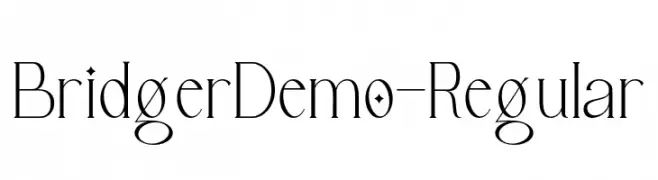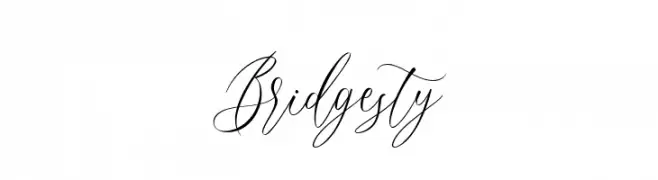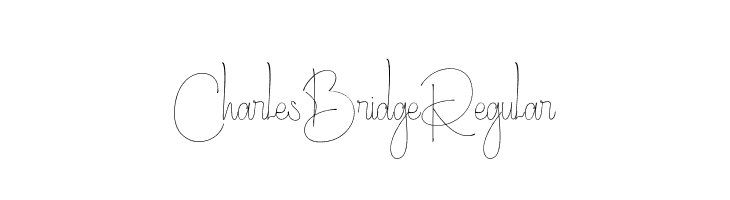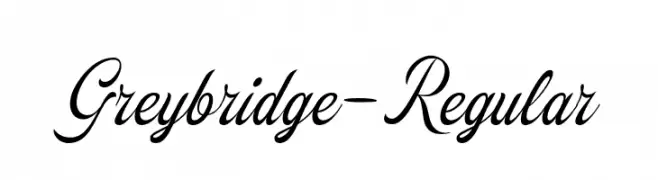
A bold, angular font with a dynamic, slanted design.
An elegant script font with flowing, cursive letterforms and ornate details.
A modern serif font with elegant, elongated letterforms and moderate contrast.
A modern sans-serif font with geometric shapes and uniform stroke width.
A graceful, handwritten script font with elegant, flowing lines.
A bold, energetic script font with a modern, cursive style.
A graceful script font with flowing, interconnected letters and a calligraphic style.
An elegant script font with flowing, interconnected characters and ornate flourishes.
A high-contrast serif font with elegant, sharp serifs and a modern classic style.
An elegant script font with flowing, ornate letterforms and graceful swashes.